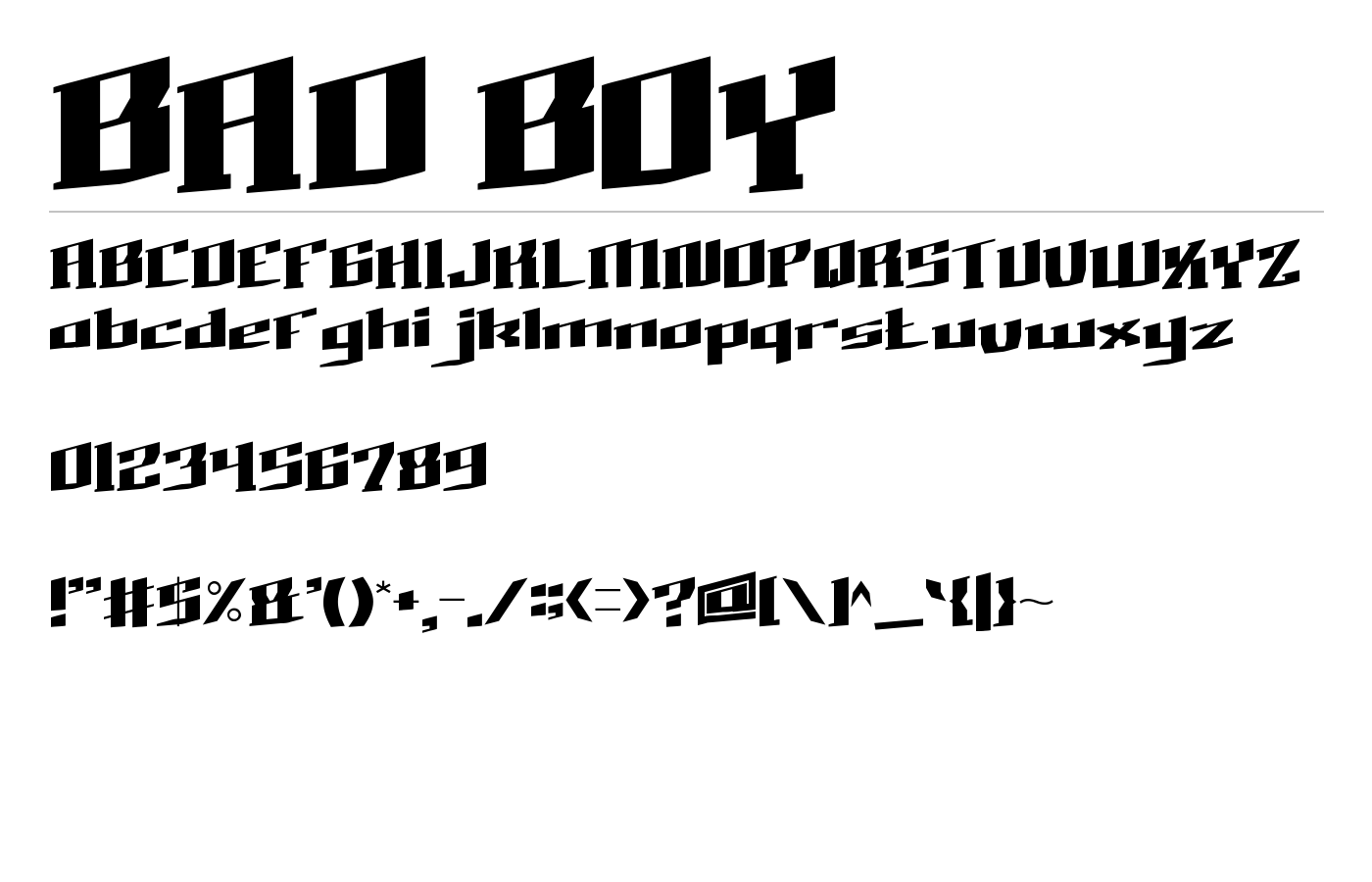
BAD BOY is a bold, condensed display font with sharp, angular strokes and a strong slant, giving it a dynamic and edgy feel. Its striking geometric shapes and high contrast make it perfect for attention-grabbing headlines, logos, and branding that convey a rebellious, modern attitude. This font works well for urban, streetwear, or sports-related designs where a powerful, confident vibe is desired.
BAD BOY Font
About BAD BOY Font